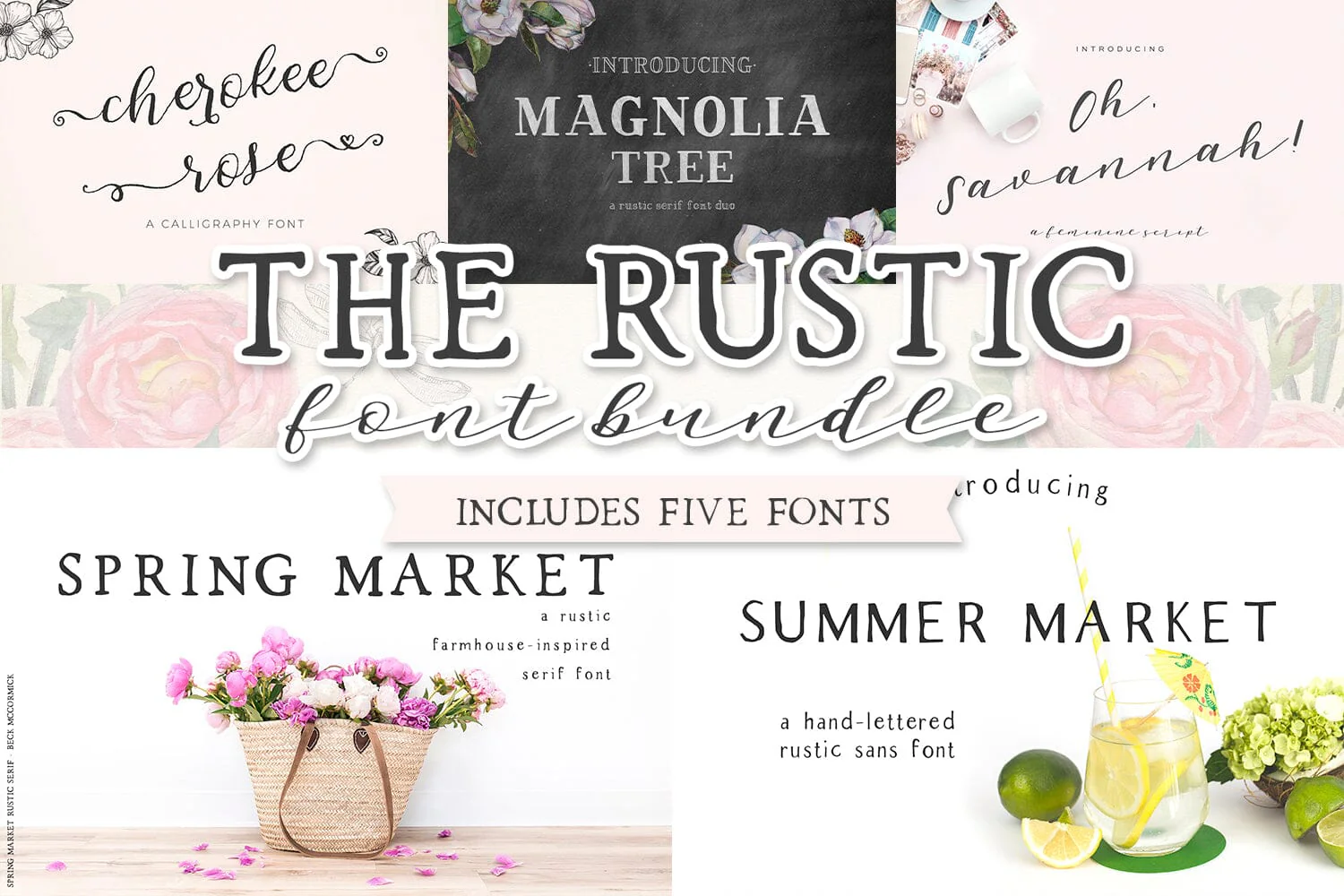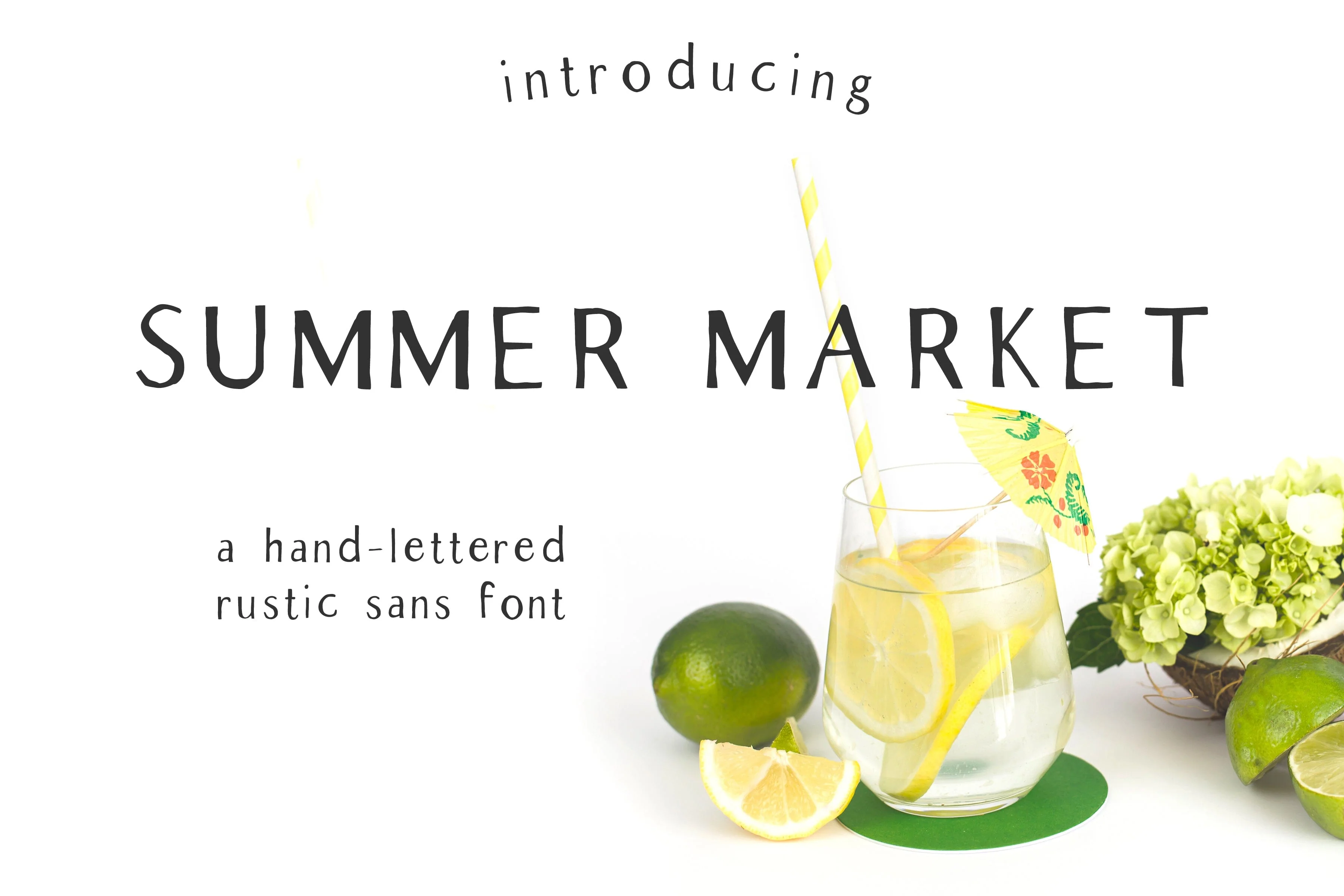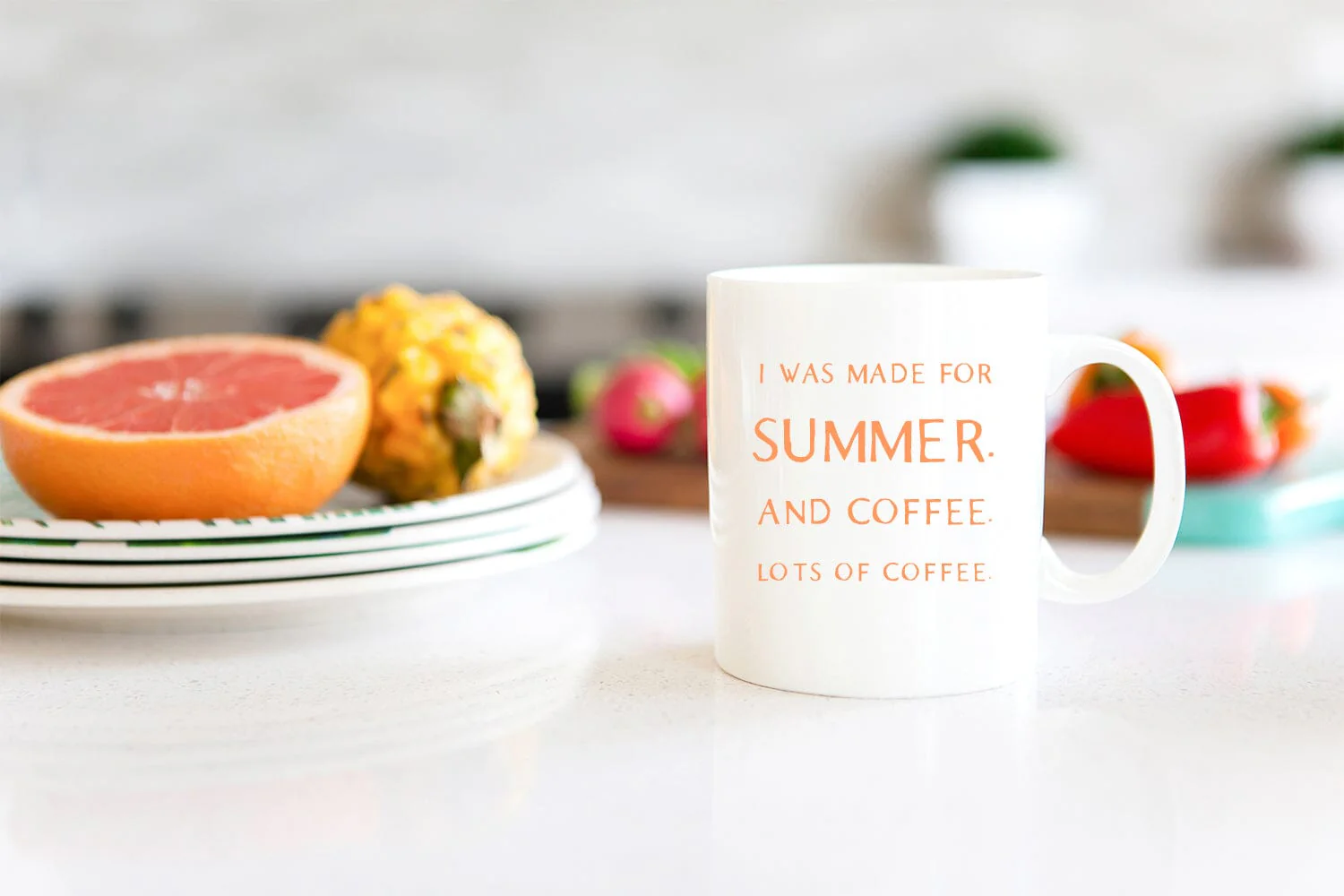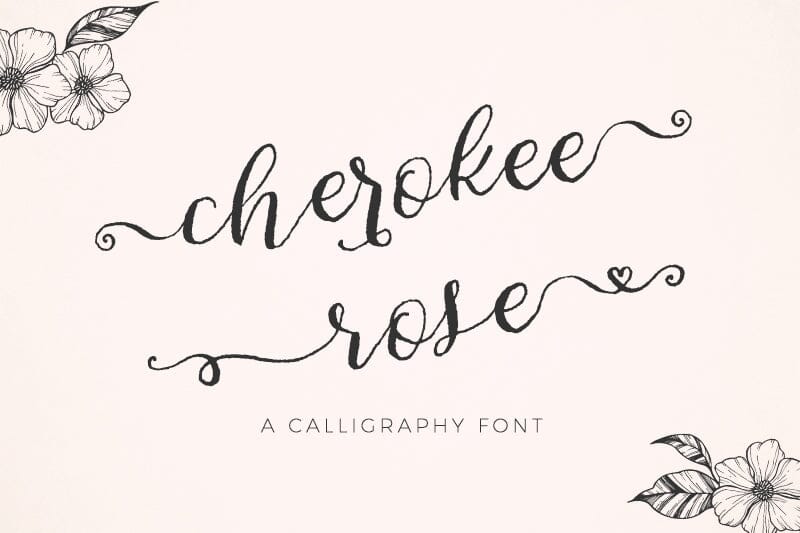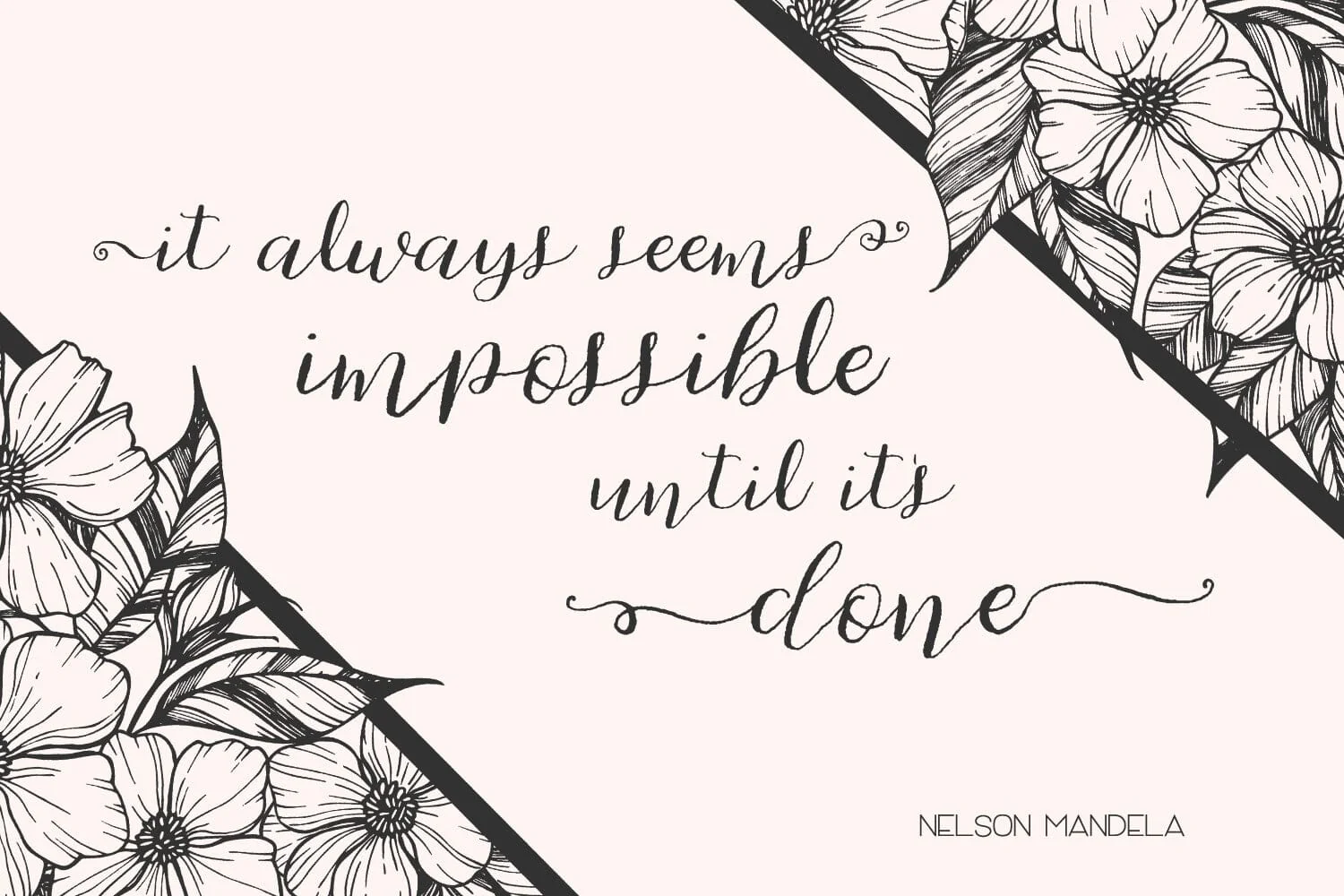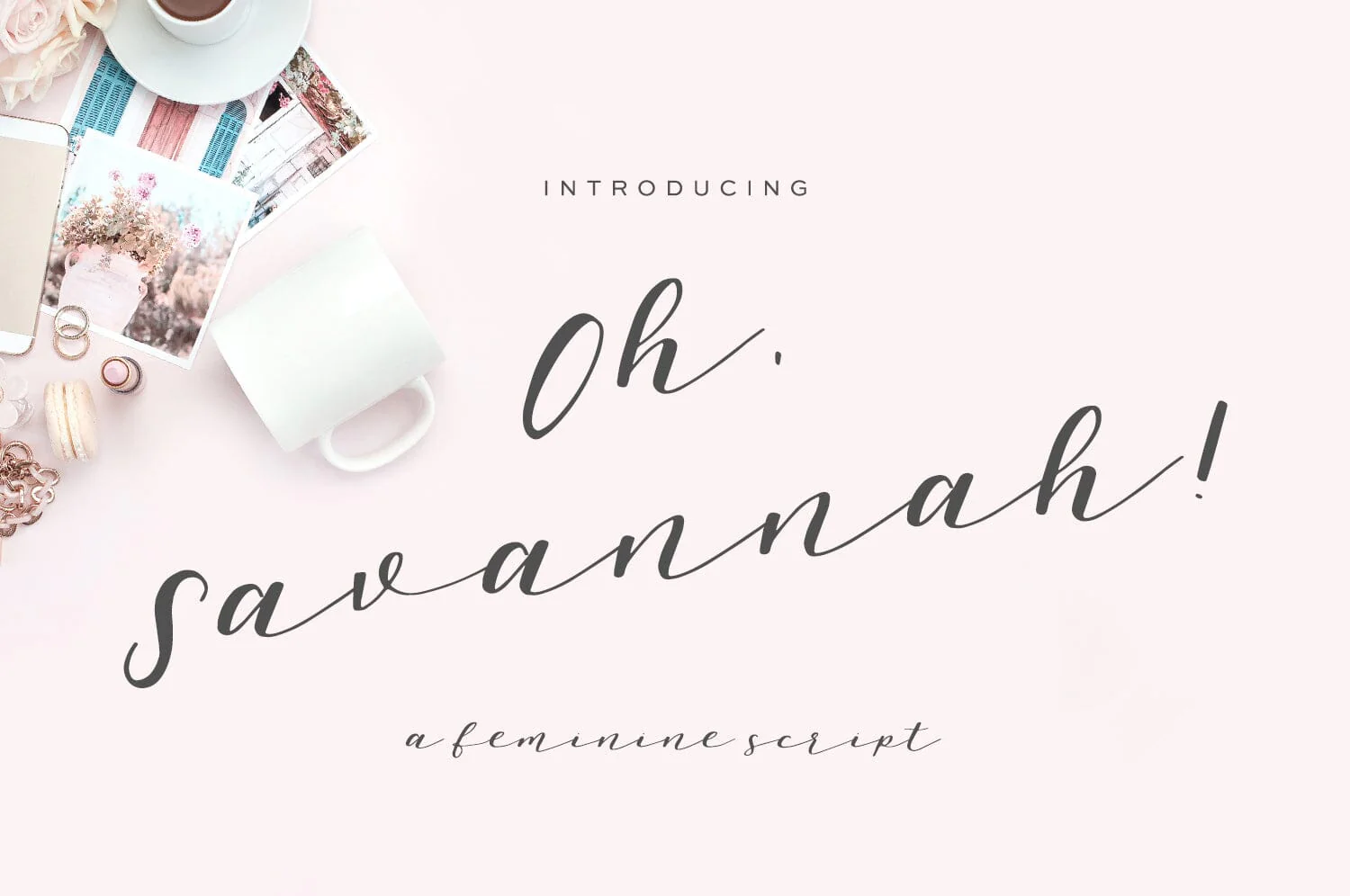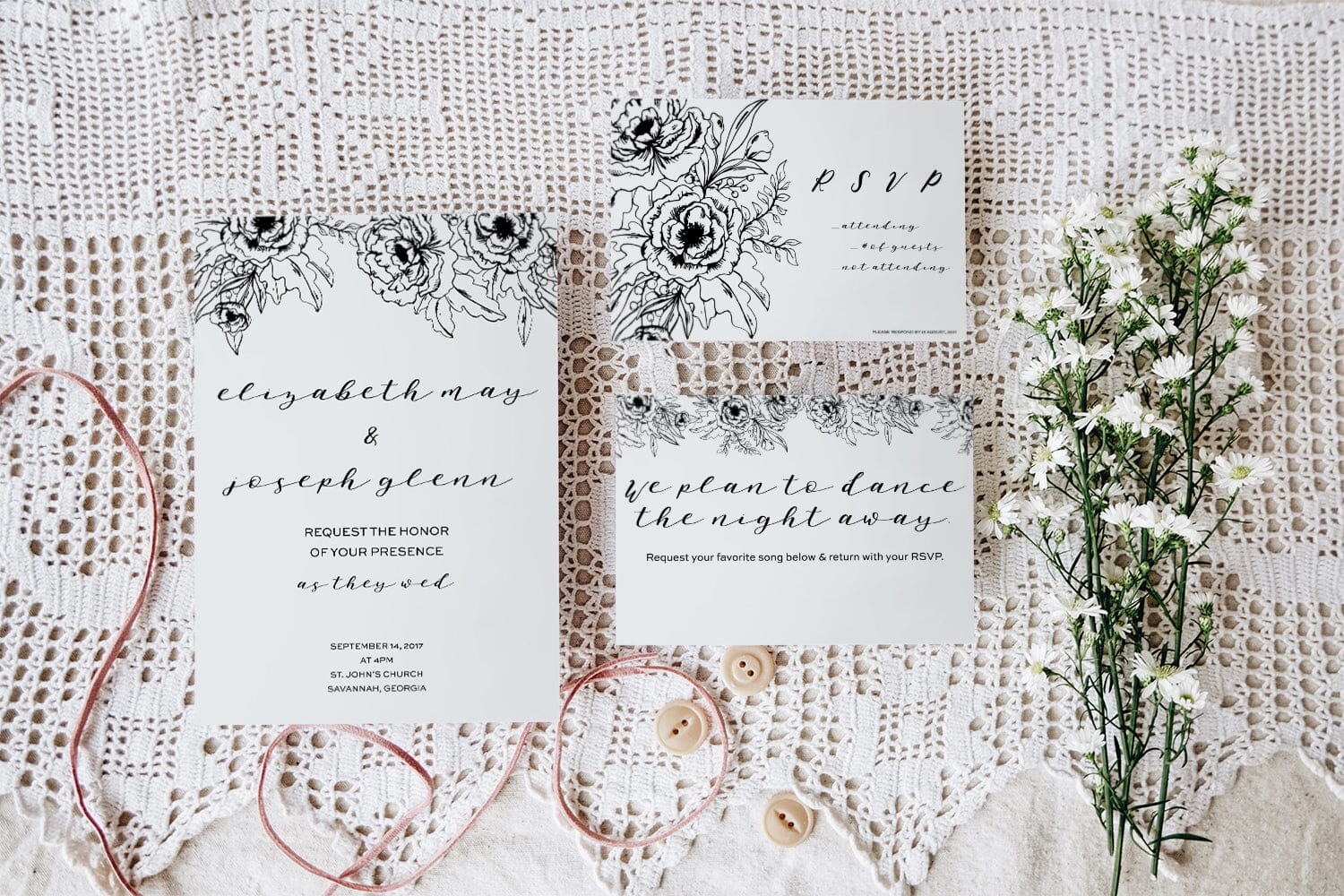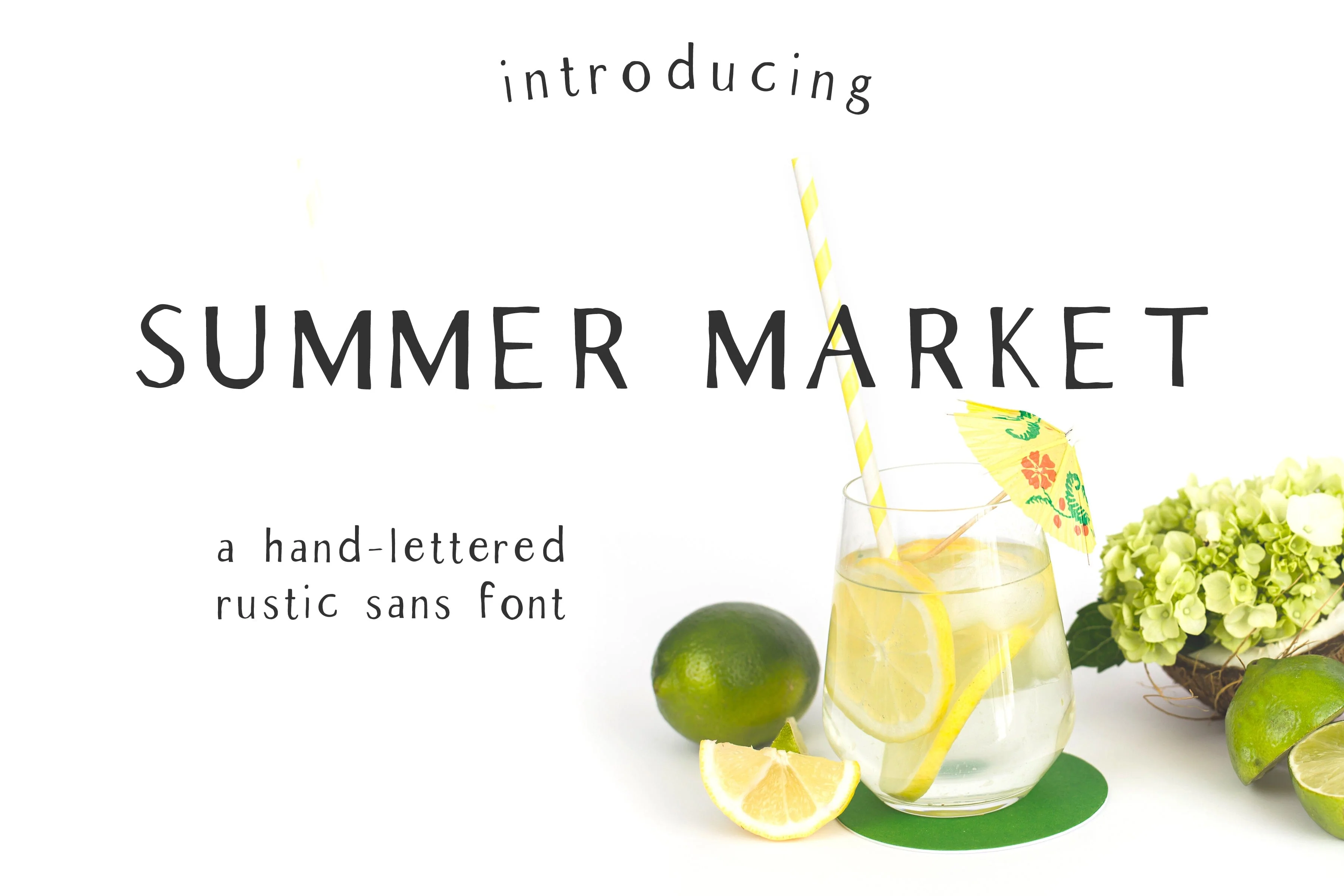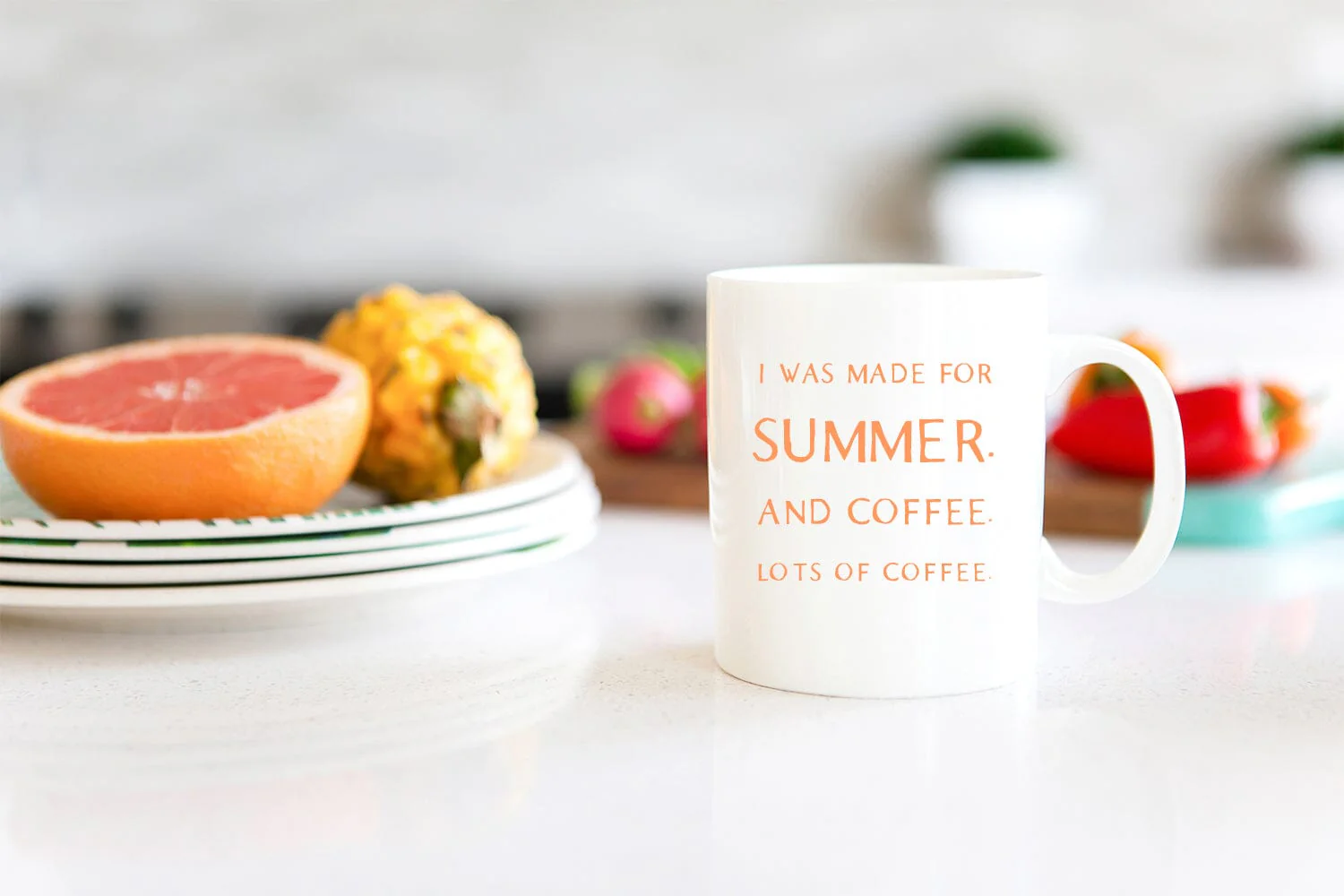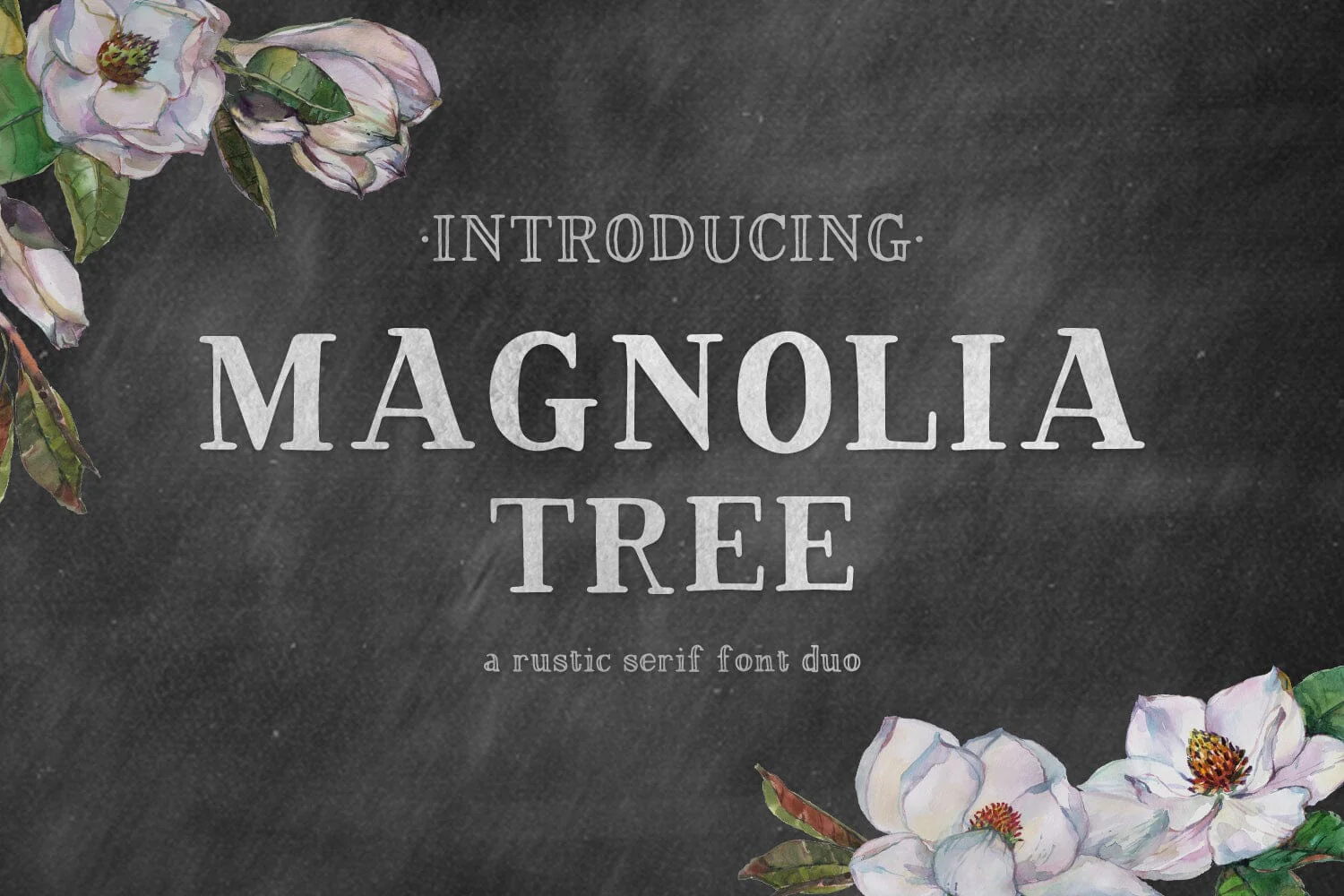
The Rustic Font Bundle
The Rustic Font Bundle by Beck McCormick includes the best farmhouse chic font options for those needing a collection of beautiful, shabby chic, rustic fonts for a variety of projects. You save $$ when purchasing as a bundle, rather than individual fonts! Font file types provided are .otf, .ttf, and webfont files.
This rustic font bundle includes:
- the best-selling Spring Market serif font
- Summer Market sans
- Magnolia Tree (inline + solid versions)
- Cherokee Rose script
- Oh, Savannah! script